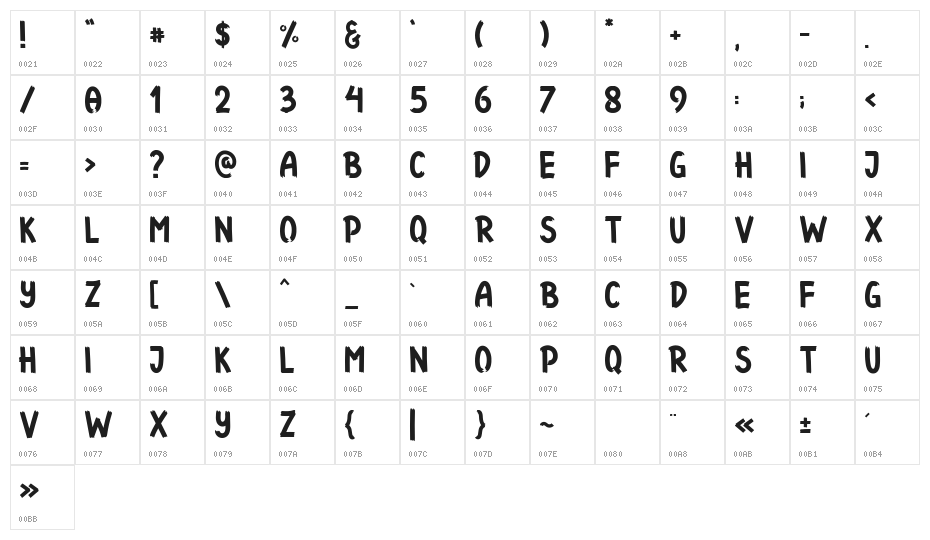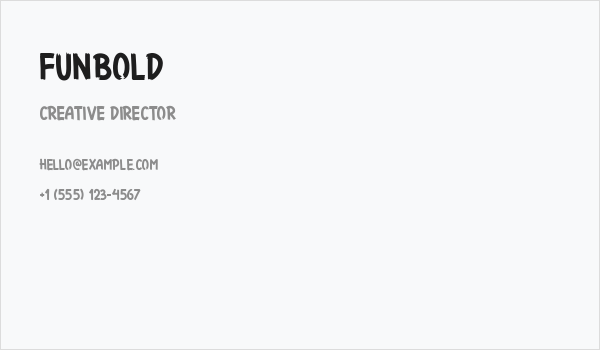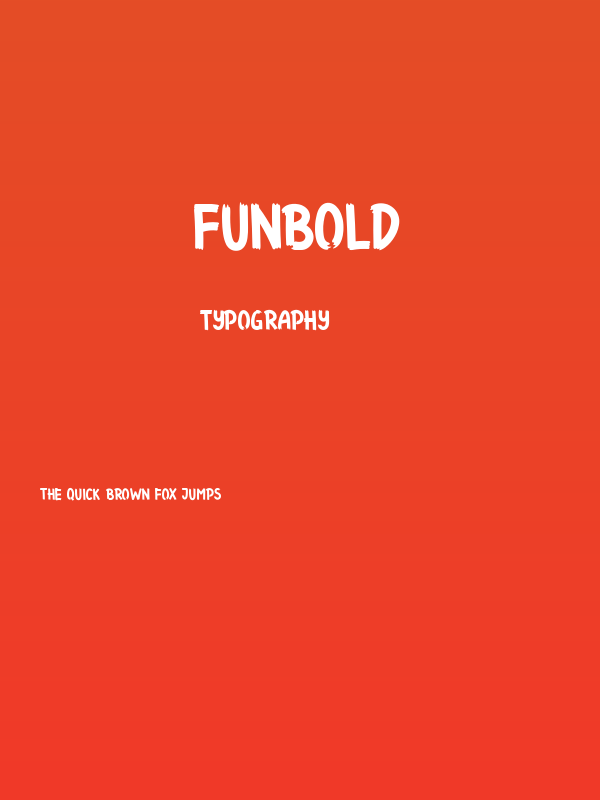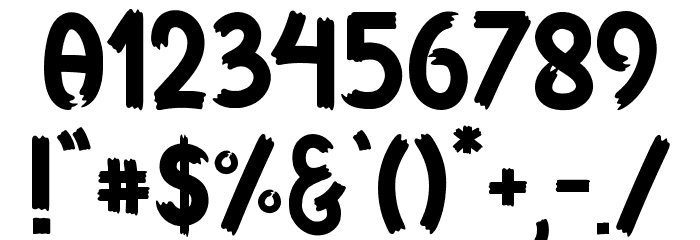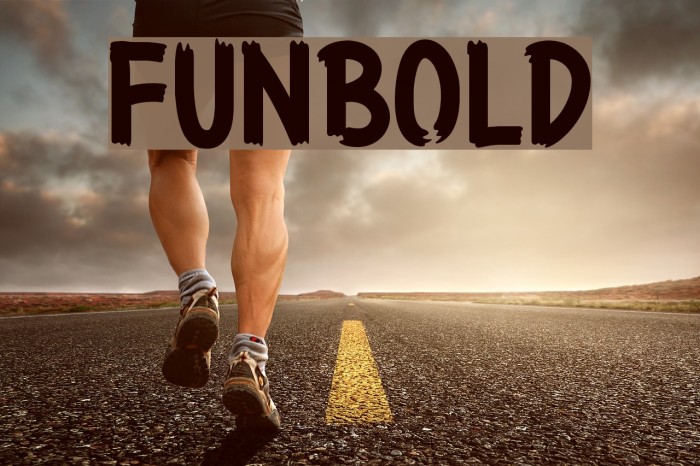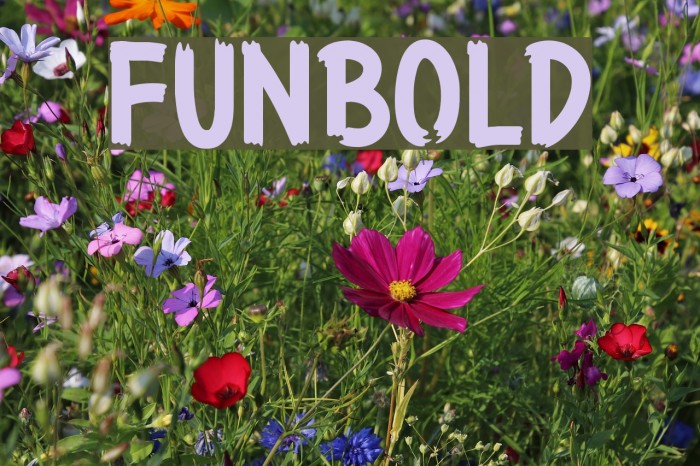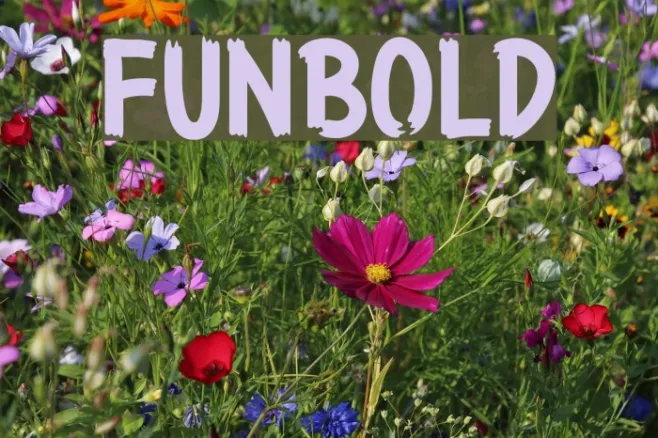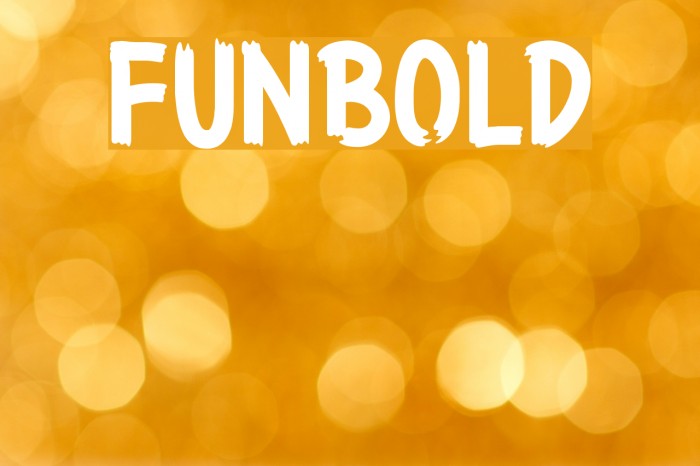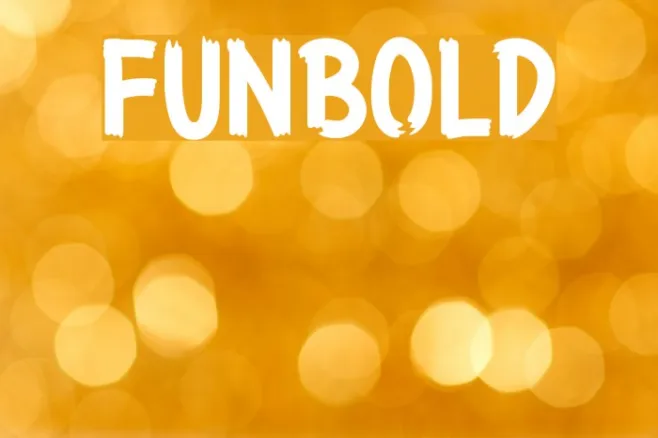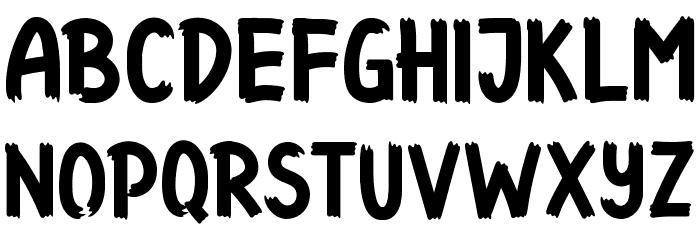
Funbold Font
Funbold Description
This font features a bold and playful style with a hand-drawn appearance. The characters have a slightly irregular and whimsical form, giving them a lively and energetic feel. The strokes are thick and consistent, with a brush-like texture that adds a dynamic quality to the overall design. The letters are well-spaced, ensuring readability while maintaining a fun and informal look. This font is suitable for projects that aim to convey a sense of creativity and enthusiasm, making it ideal for children's books, playful branding, or eye-catching headlines.
| Overall Style | Playful, Creative |
| Proposed Projects | Children's books, playful branding, eye-catching headlines, posters, and creative invitations. |